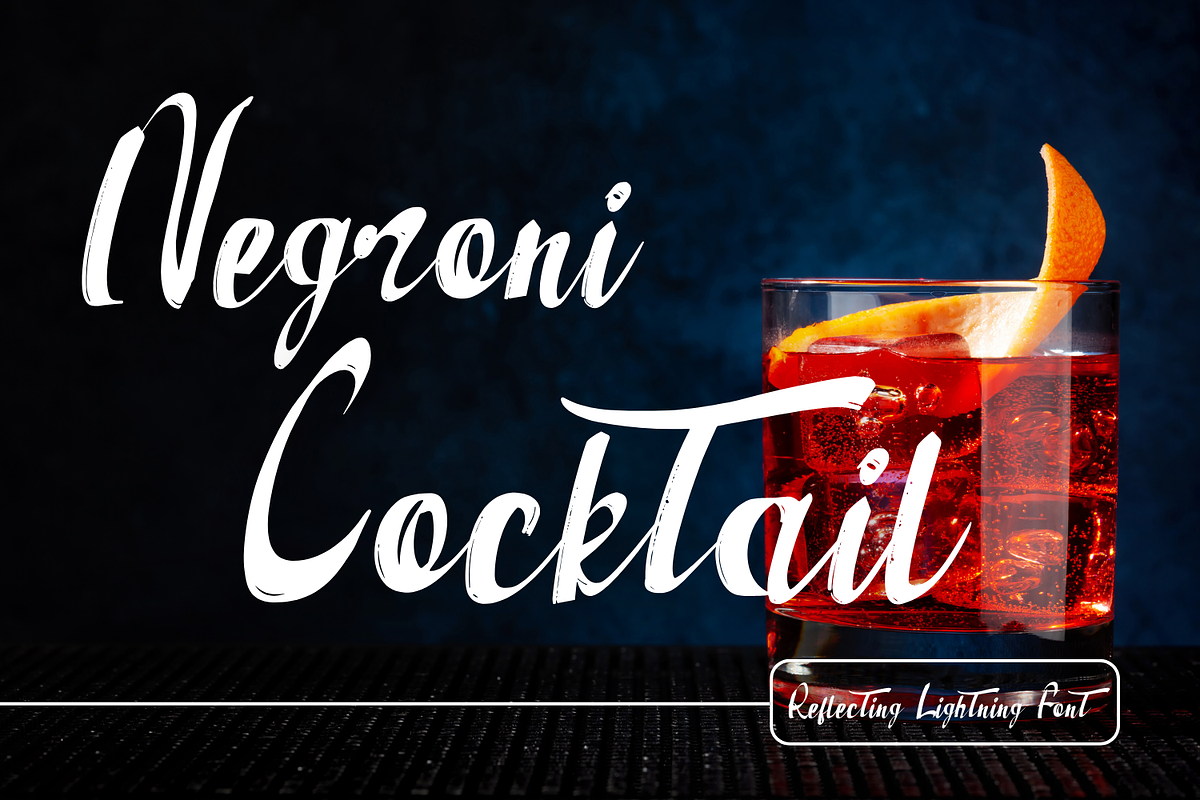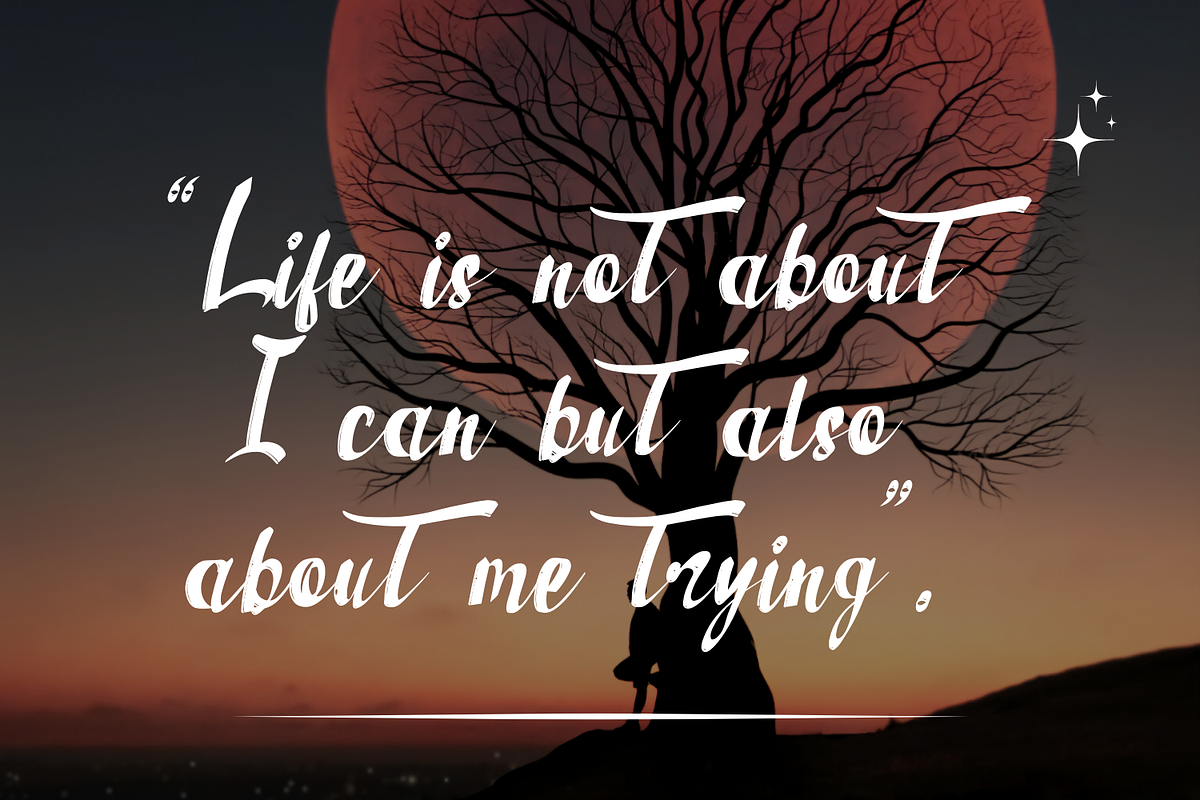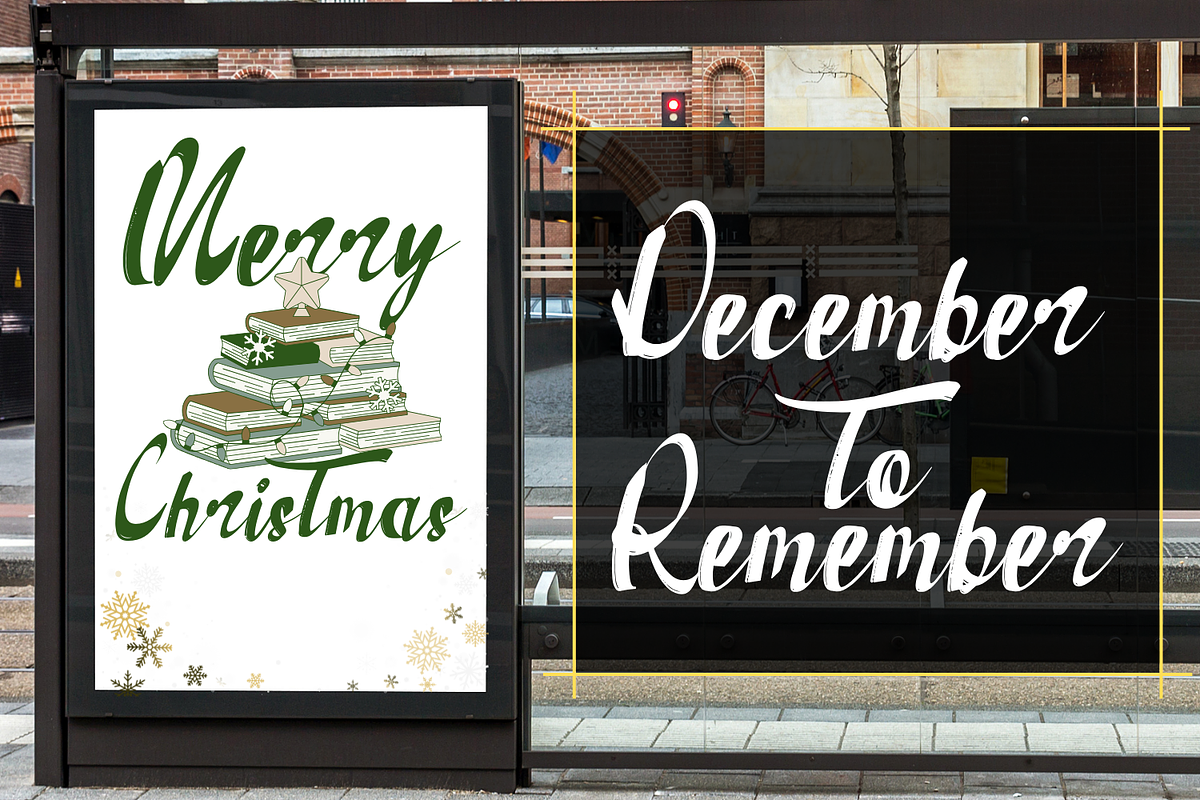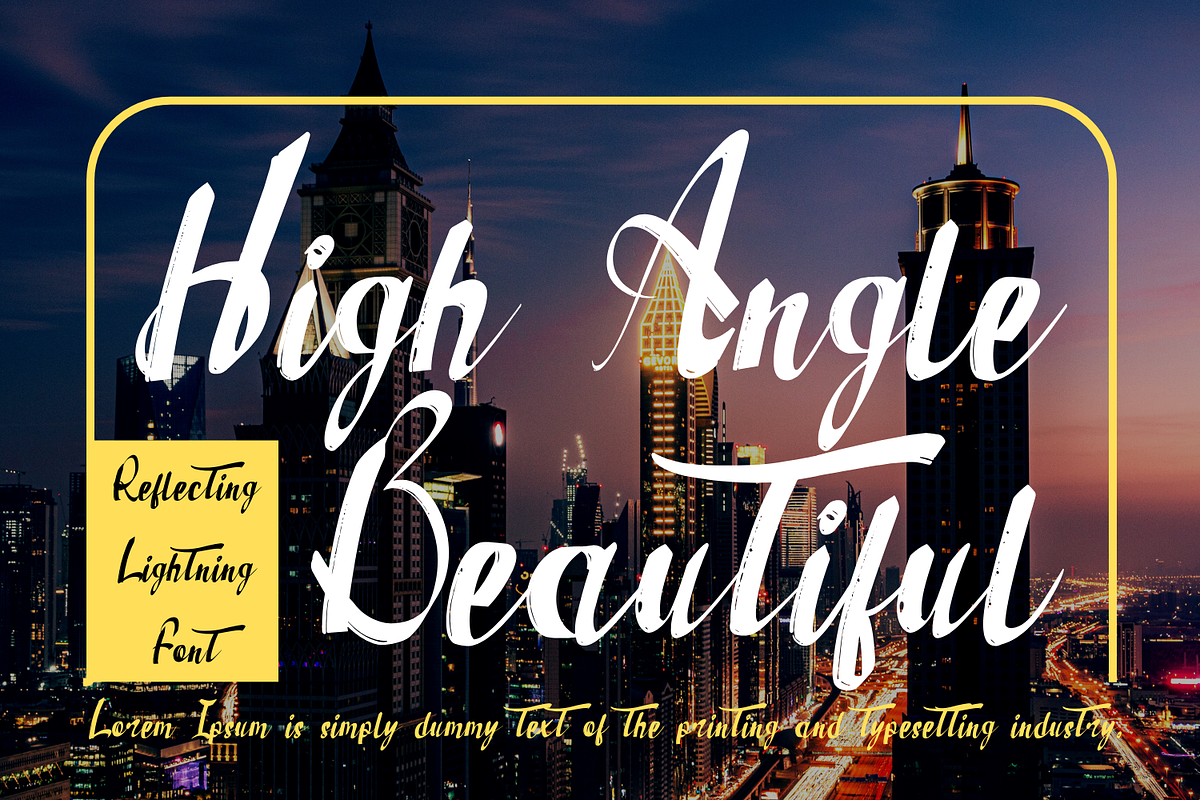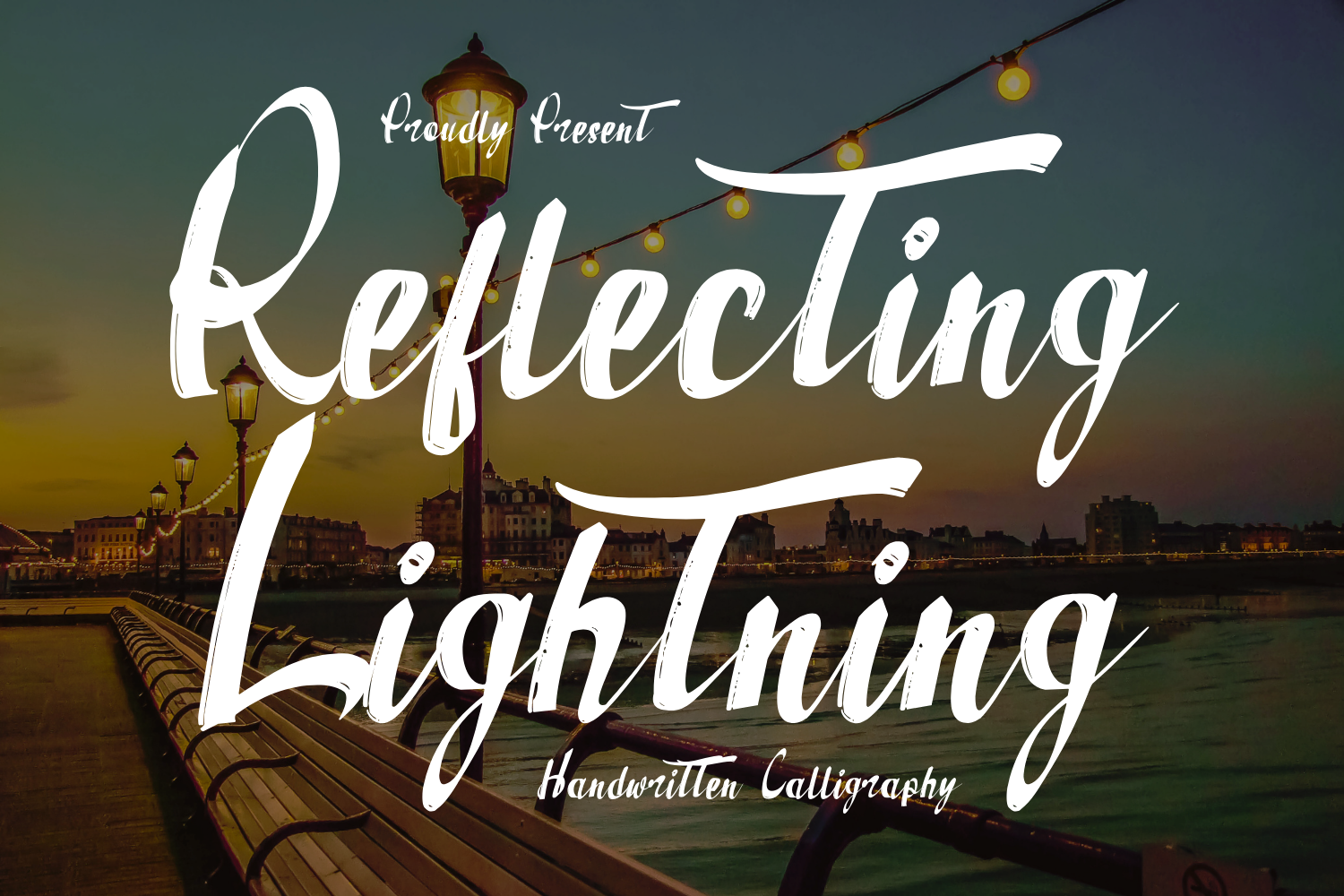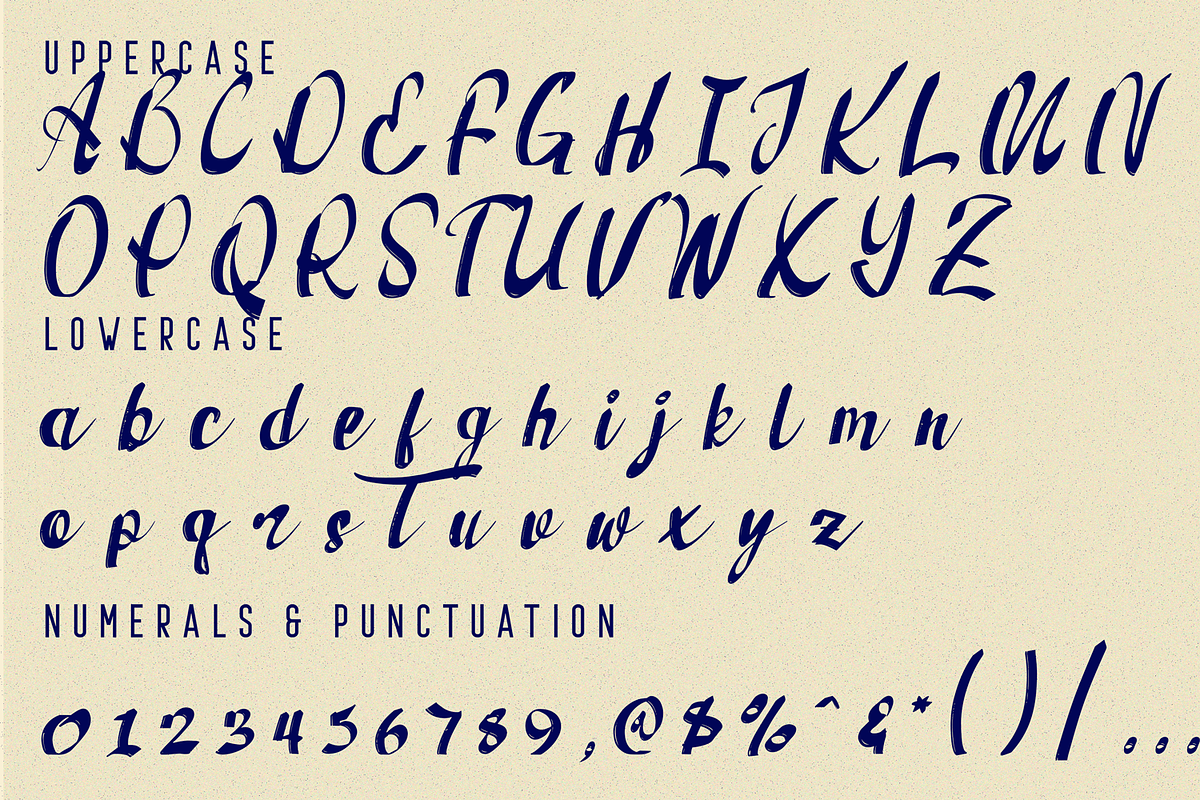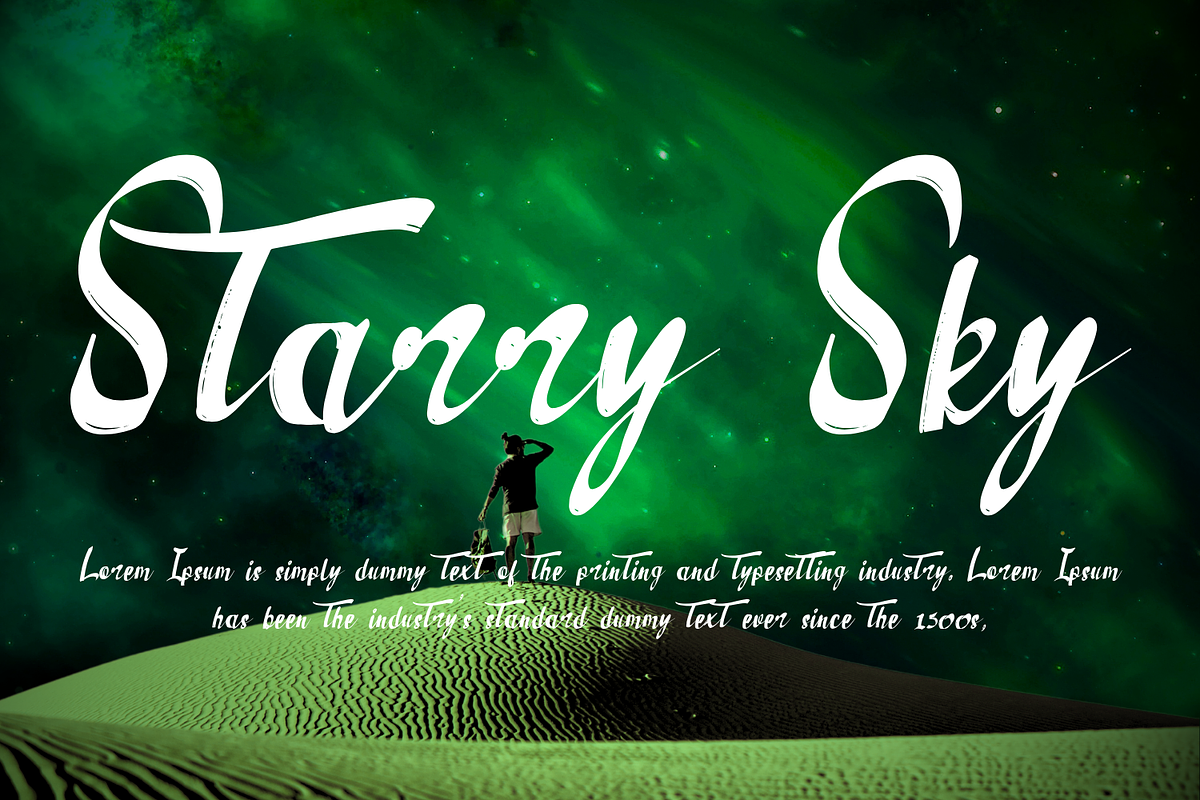
Reflecting Lightning - Brush Font
Reflecting Lightning - Brush Font is a modern handwritten calligraphy font with a bold brush-painted texture and dynamic strokes. Each letterform flows gracefully with natural ink variations, delivering a sense of movement, authenticity, and emotional depth. This font combines elegance with expressive energy, making it perfect for branding, quotes, wedding invitations, social media posts, product packaging, and creative projects that seek a handwritten artistic touch.
- Uppercase & Lowercase Letters
- Accented Characters for multilingual support
- Authentic brush strokes & textured details